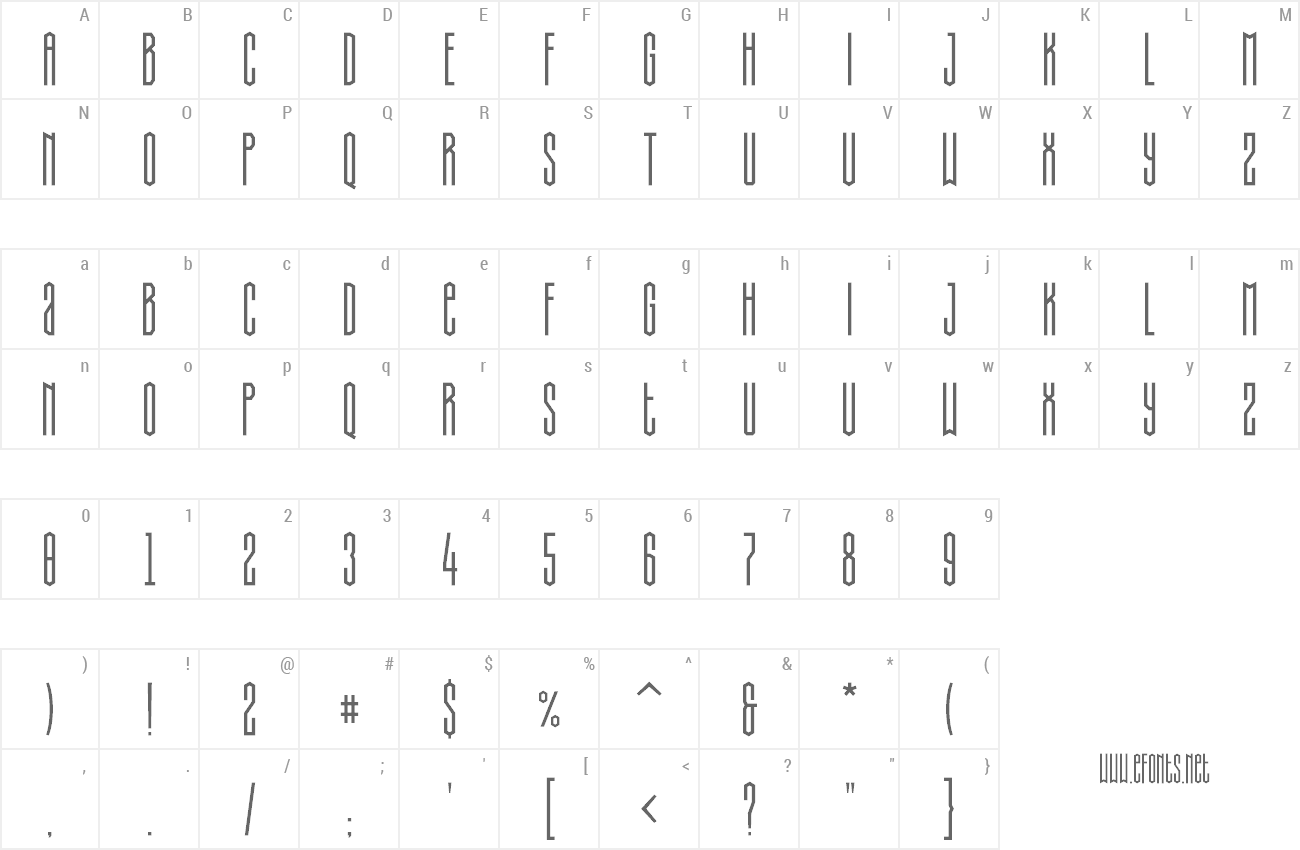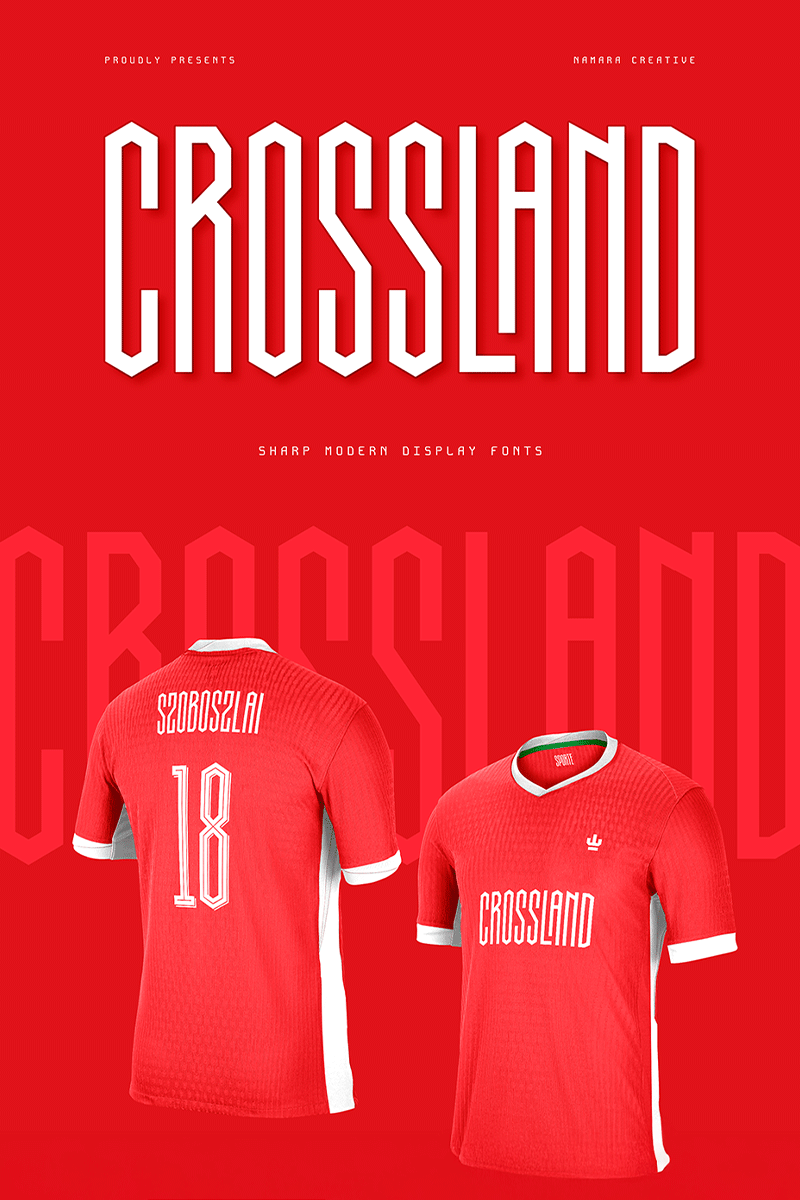
Preview and download Crossland Font. Created by Namara Creative in Techno Various styles with Free for personal use license.
Dynamic typeface designed for attention-grabbing headlines, sports branding, and any context requiring an energetic, commanding presence. NOTE : - This font is PERSONAL USE ONLY, NO COMMERCIAL USED ALLOWED. - Link to purchase Full Version and Commercial license here https://onedsgn.com/product/crossland-display |